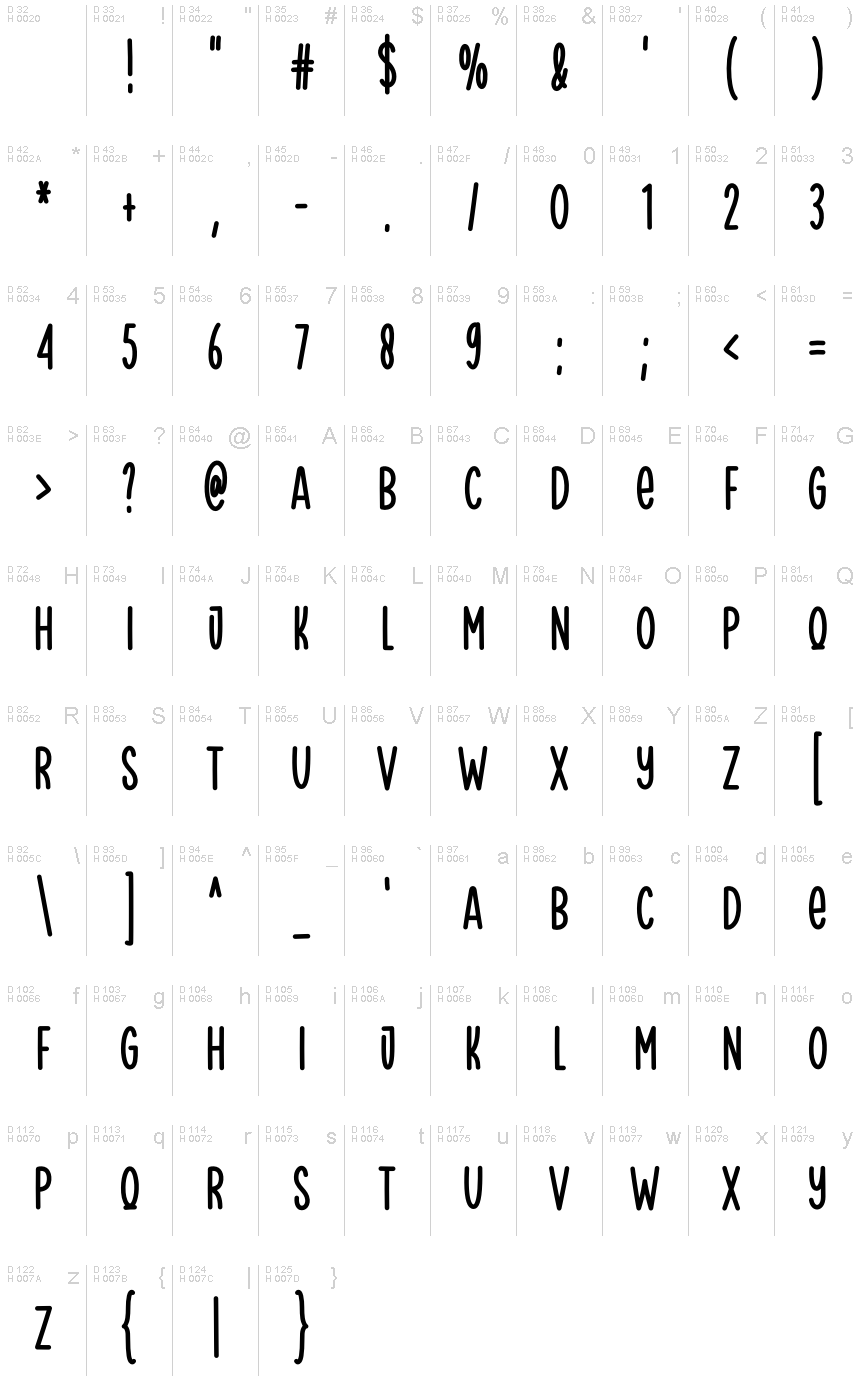
Simple Story
Simple Story by Scratchones is a handwritten font that encapsulates the charm of personal touch with its semi-light stroke and extra-condensed letterforms. Crafted to evoke the warmth of individual handwriting, this typeface boasts an aesthetic appeal that resonates with projects seeking a blend of intimacy and elegance.
The semi-light weight of Simple Story lends it an airy, unobtrusive quality, making it perfect for delicate design work where subtlety is key. Its extra-condensed width offers a unique space-saving feature, allowing for impactful messaging without overwhelming the canvas.
Perfect for invitations, branding, or editorial work, Simple Story is versatile enough to enhance any creative endeavor with its distinct style. The handwritten essence of this font adds a layer of authenticity and approachability to your designs, inviting viewers into whatever narrative you choose to weave.